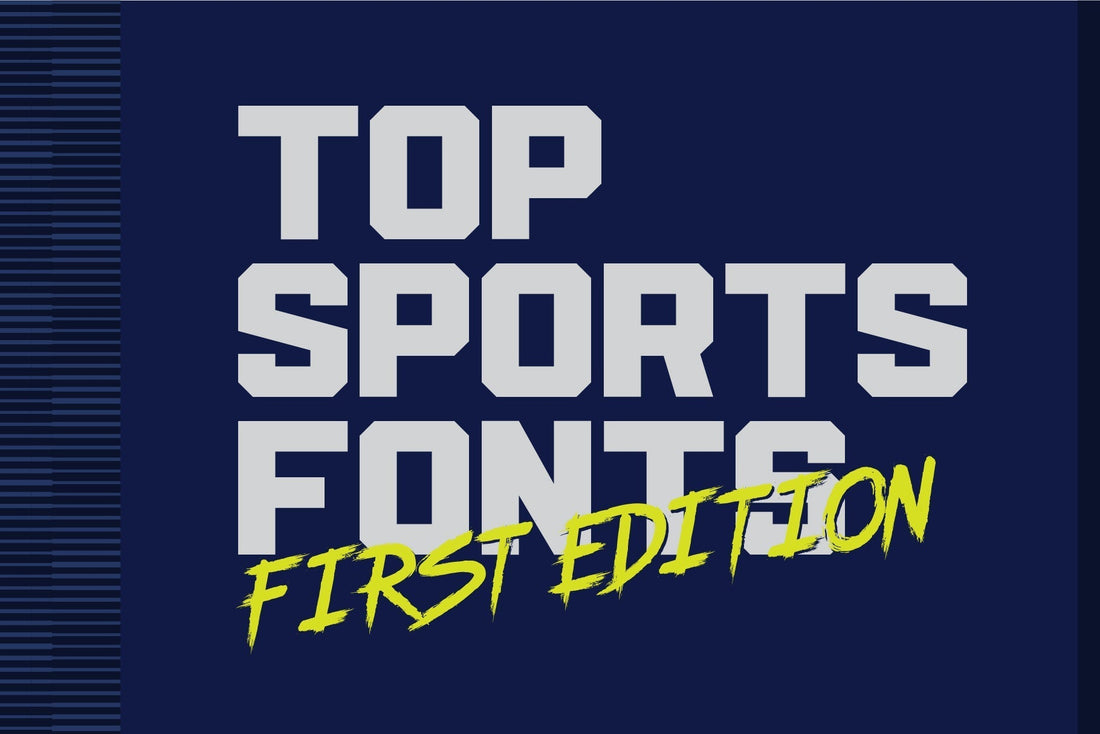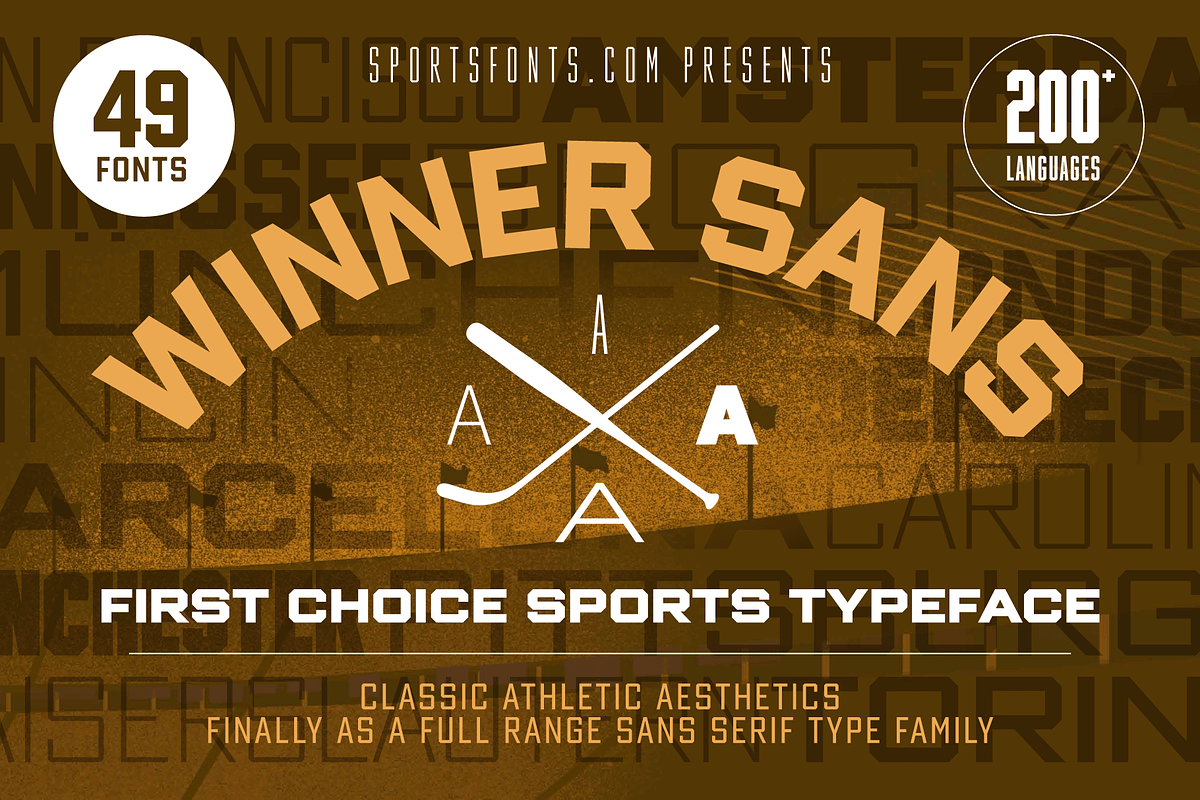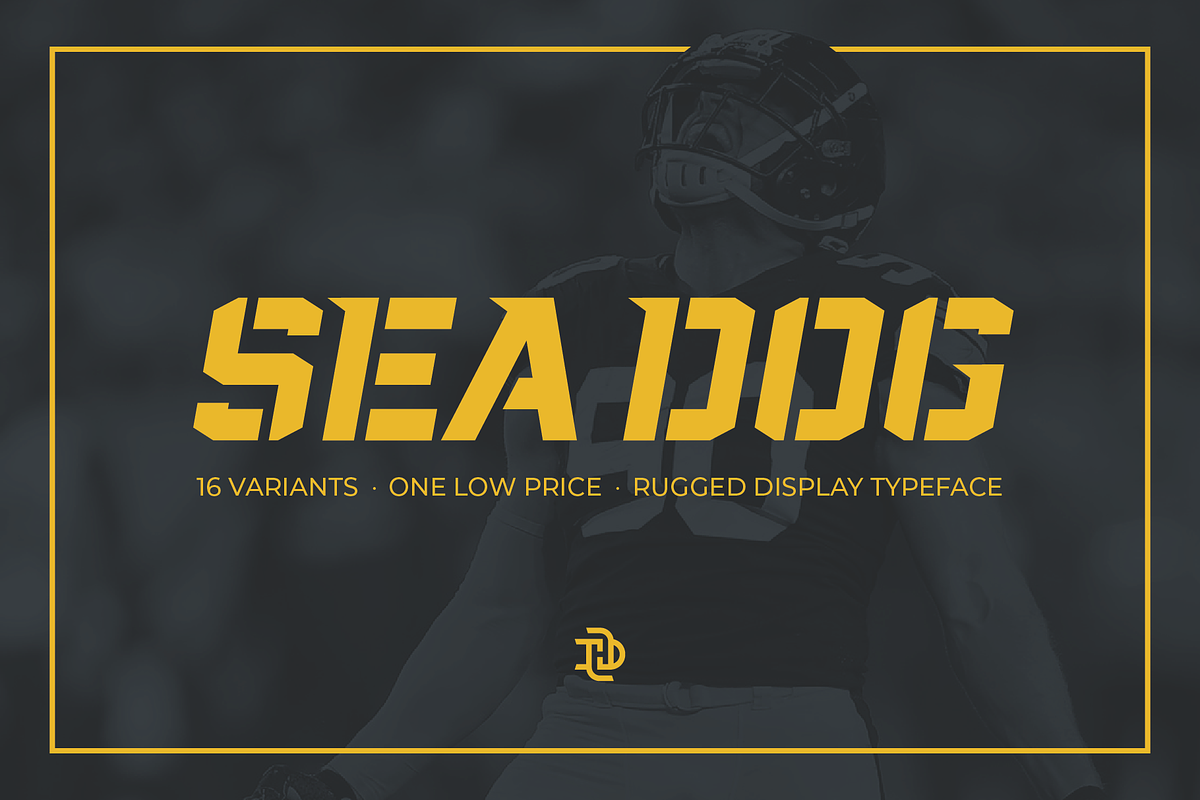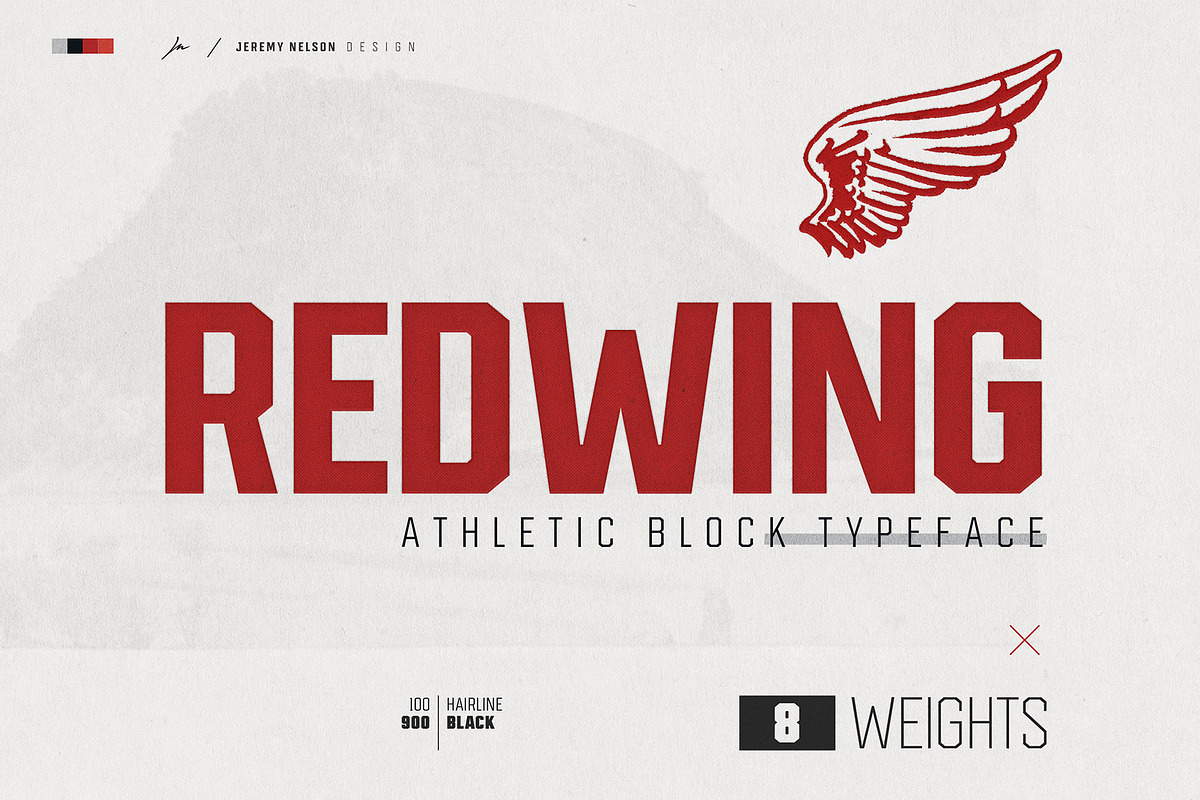
Top 10 Sports Fonts For Your Designs
If you’ve ever tried designing a bold sports logo, a team jersey, or even a hype poster for an athletic event — you know that the right font makes all the difference. Sports fonts need energy, structure, and personality. They have to look just as good across apparel as they do on digital screens.
That said, I decided to put together a little short-list of top sports fonts that I’ve seen or even designed myself. (They are pretty solid picks IMO) There’s obviously more out in the wild, maybe a different list for later?
1. Triton Sports Font — ANDR35
Triton struck a chord with designers worldwide. I don’t know why or how, but I’ll take it. It’s recently been overhauled and retooled to do more for you, the designer. It’s got upper/lowercase, accents and alternate glyphs across multiple weights. You can find a home for it, just like Football Association of Ireland does on their kits, branding, etc.
2. Spartan — ANDR35
Spartan was built to be tough, bold and military-esque. Inspired by Halo, military, and those tough outdoor races you’ll get to bring the brawn to your design. It’s also being used by the AEW on their All Out event branding, so it's battle-tested. (psst…I’m currently working on turning this into a more expansive font family, so follow me on Instagram)
3. VTF League — VarsityType
I’ve been following Varsity Type for a few years now, he’s a very solid type designer. I don’t think I’ve ever NOT liked his work. Hope you love it too. This font has been used by some big names you’re aware of in the sports & sports broadcasting world.
4. VTF Redzone Classic — VarsityType
I couldn’t land on just one VTF font, I really would’ve put all of his fonts on this list. Redzone Classic is definitely a font that you’d want to use in your sports designs. Easy money.
5. Redwing — by Jeremy Nelson
Jeremy Nelson is another type designer in the sports space that I think ALWAYS delivers. Although, he’s usually working on a custom typeface for some pro sports team, his own typefaces still bring the detail and sports aesthetic you’re probably looking for. He’s got a few others but Redwing…solid win. A condensed, varsity style that you'll get plenty of use out of with all of the weights available.
6. Scoreline — ANDR35
Scoreline was a sketch that turned into a font. I was definitely sketching out a font idea but it looked right so I went with it and you’ve got yourself a modern, semi-slab serif. This one also has upper/lowercase letters.
7. Winner Sans Complete — SportsFonts
Sportsfonts went to town on this type family system. It goes hard, the passion comes through it too. It addresses a TON of issues that quick one-off fonts leave out. If you want tons of weights and glyph options…check Winner Sans out.
8. Sea Dog Complete — Doug Houvener
Sea Dog brings a bit of maritime grit and American sports energy that is not hard to miss. You definitely think…NICE! I know I’ve been saying this about these other fonts, but it’s solid. You don’t have to think if you’ll use it…just when and where.
9. Beast Mode SVG — Set Sail Studios
If you don’t know about Set Sail Studios…I mean, you probably have seen Sam’s work everywhere. Beast Mode is an energetic, all caps brush font. It’s good enough to standalone or to pair with another typeface. Hopefully it’s not overused in the sports world, but I’m fairly certain it hasn’t been. Use it like salt…season to taste.
10. ATF League Quest — Andrew Footit
League Quest gives off this Juventus brand look that I like. Remember when Ronaldo signed with Juventus…that era. It’s tall, condensed and fun. If you want to go for a European/ Italian soccer vibe, this would be a solid pick.  Here’s a pull quote from his own write-up that I think sums it up well: “Inspired by classic football aesthetics, League Quest features a powerful, condensed design with sharp angles and a commanding presence.”
Final Thoughts (if you made it this far)